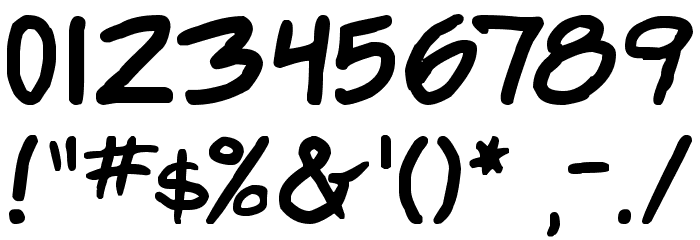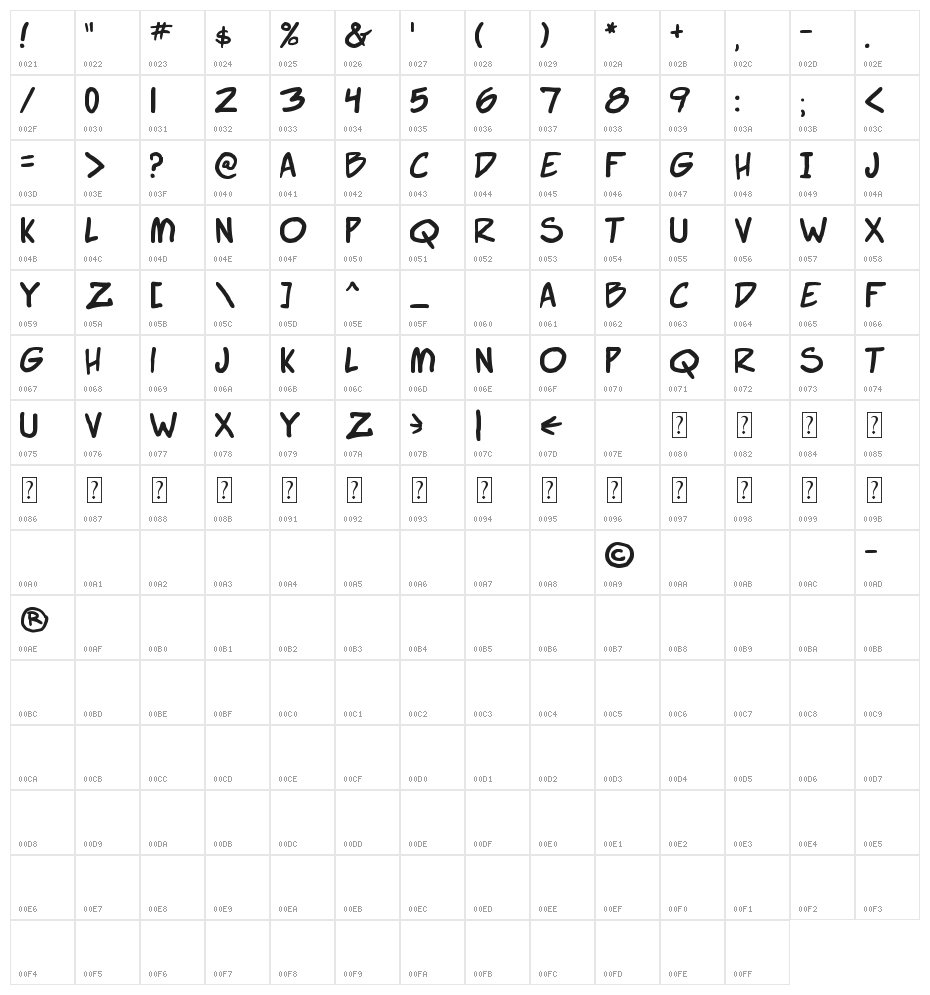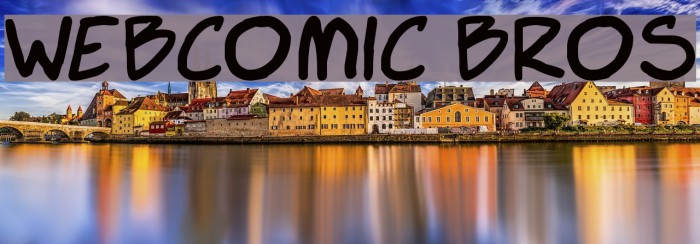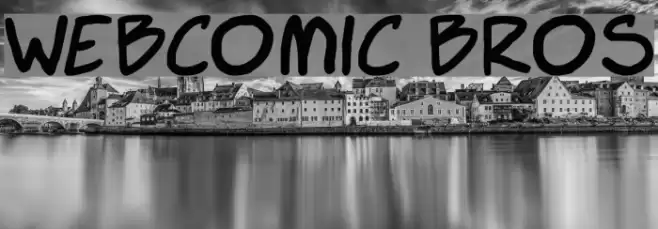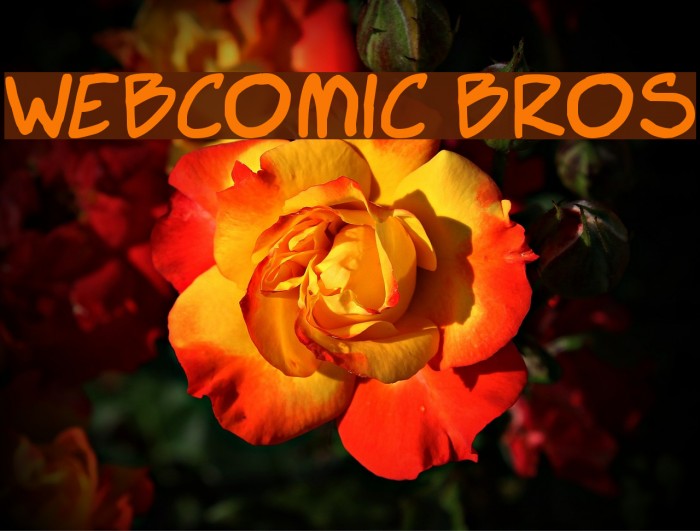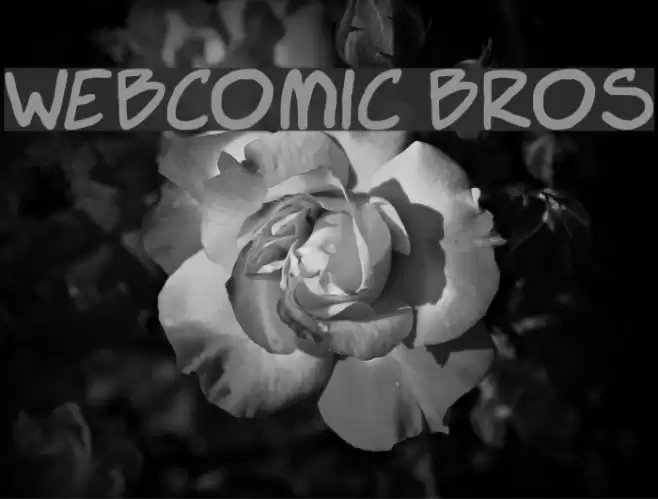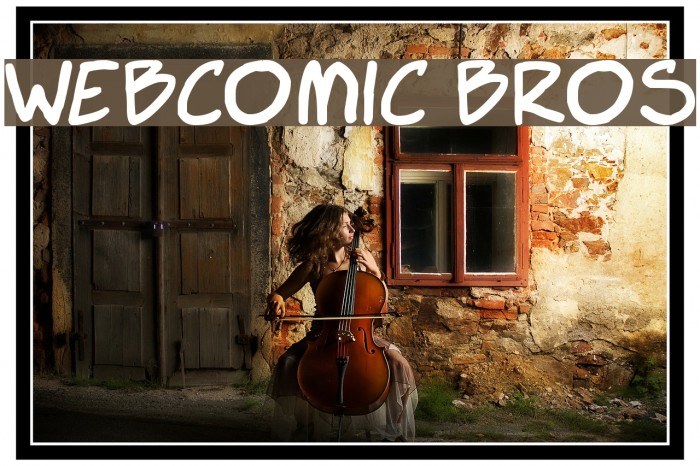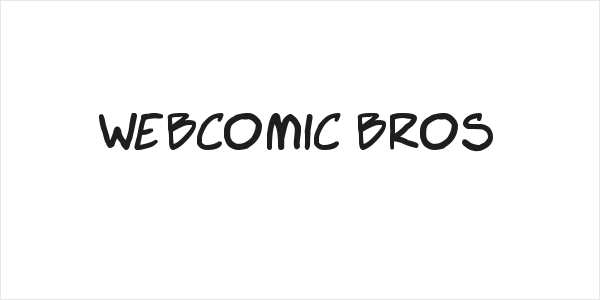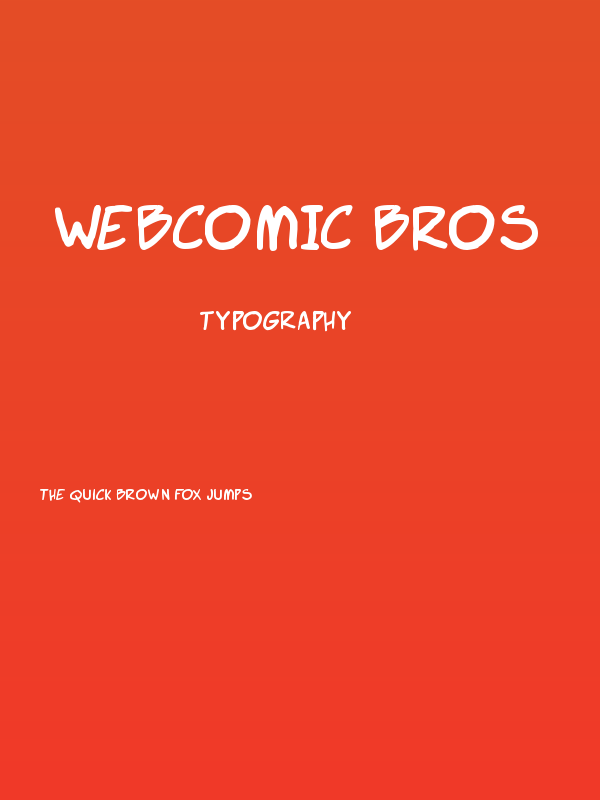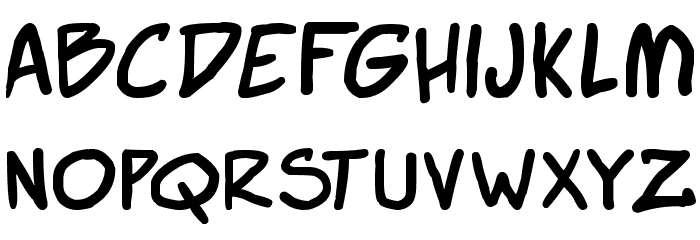
Webcomic Bros Font
Webcomic Bros Description
This font exudes a playful and casual vibe, reminiscent of hand-drawn lettering often found in webcomics and graphic novels. The characters are bold and slightly irregular, giving them a lively and dynamic appearance. The strokes are thick and rounded, contributing to a friendly and approachable feel. The uppercase and lowercase letters maintain a consistent style, with a slight slant that adds to the informal aesthetic. Numbers and special characters are equally bold, ensuring they stand out clearly. This font is perfect for projects that require a fun and engaging look.
| Proposed Projects | Ideal for webcomics, children's books, casual posters, and playful branding. |